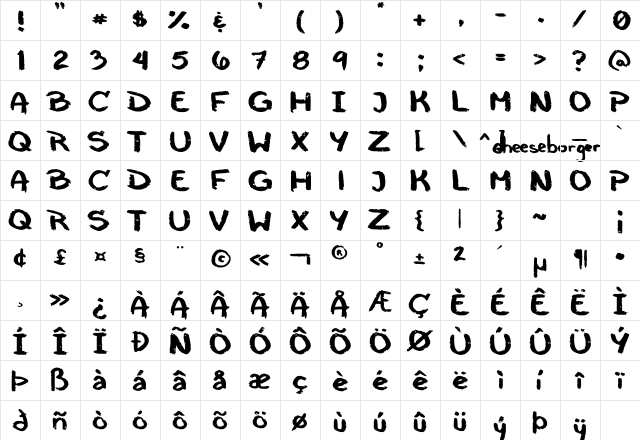
cheeseborger Regular
Design Context for cheeseborger Typeface
cheeseborger is a composed and adaptable typeface that performs quietly and consistently across a wide range of design contexts.